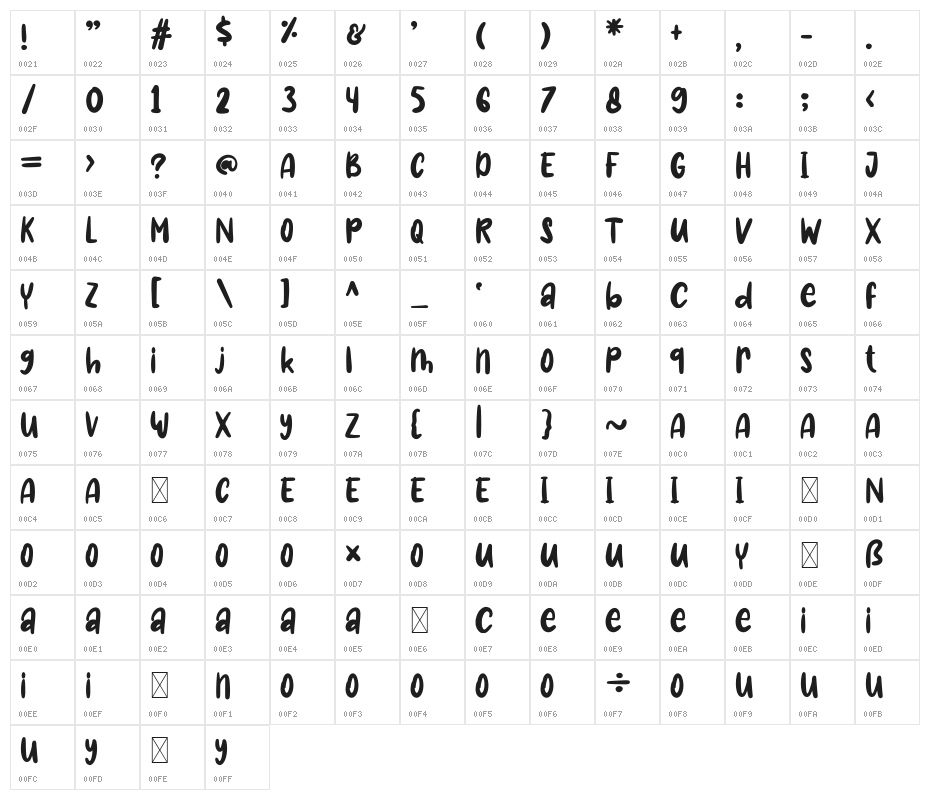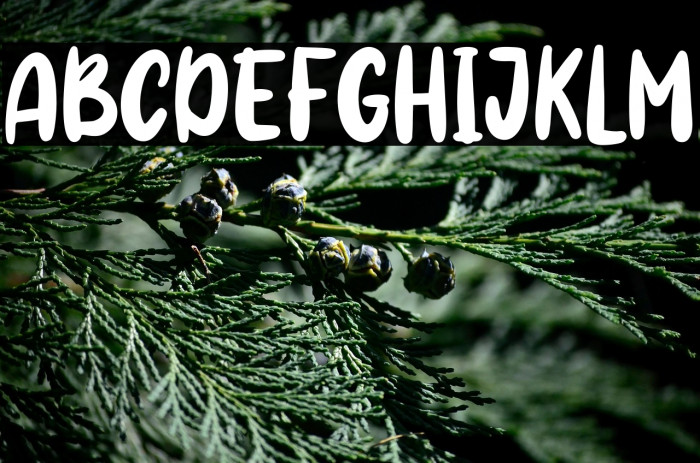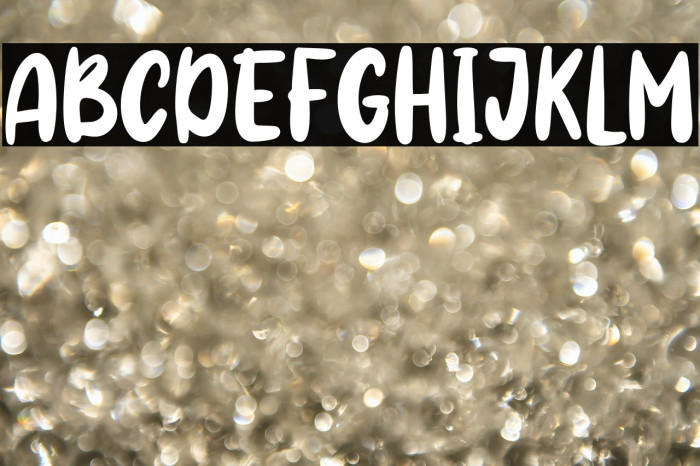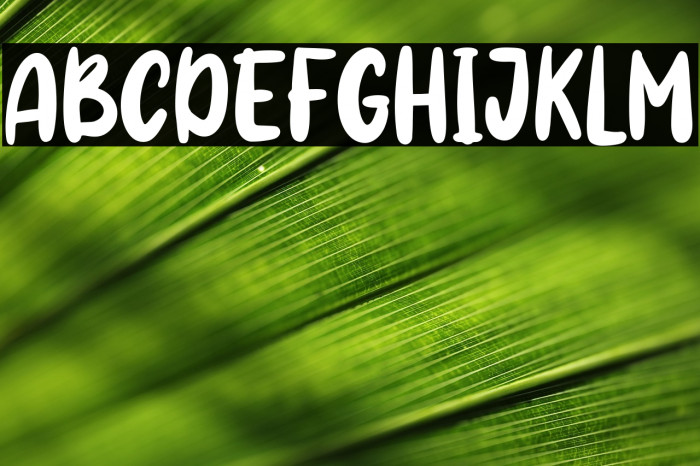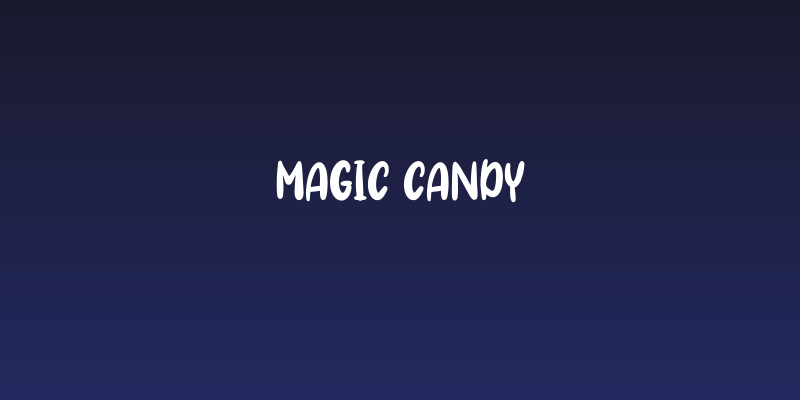
Magic Candy Font
Magic Candy Description
This playful and bold font features a handwritten style with rounded edges and a friendly appearance. The characters are thick and consistent, giving a sense of uniformity while maintaining a casual, informal vibe. The uppercase and lowercase letters are well-balanced, with a slight slant that adds to the dynamic feel of the font. Numbers and special characters are included, matching the overall style with their rounded and approachable design. The font's thick strokes and smooth curves make it highly legible, even at smaller sizes, while its whimsical nature makes it perfect for creative projects.
| Overall Style | Playful |
| Proposed Projects | Ideal for children's books, playful branding, greeting cards, and social media graphics. |